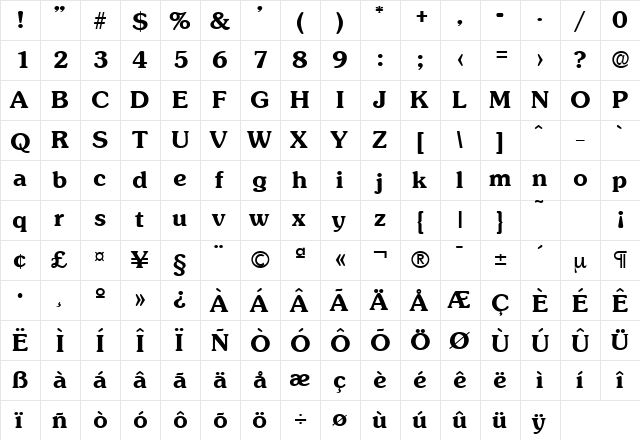
Sunset-Serial Bold
Design Context for Sunset-Serial Typeface
Sunset-Serial offers clean, dependable letterforms without strong stylistic allegiance, making it a practical choice for designers who need flexibility. Its bold stroke weight gives it real presence on the page.
Pro Tip: Use Sunset-Serial in both headline and body roles to test its range before committing to a single application.